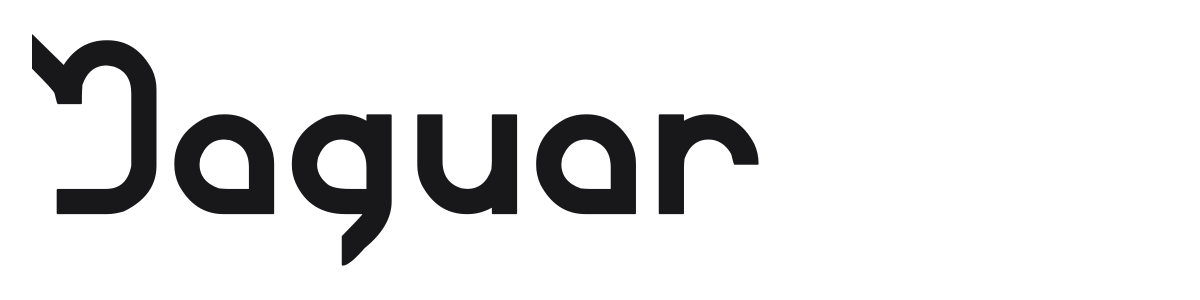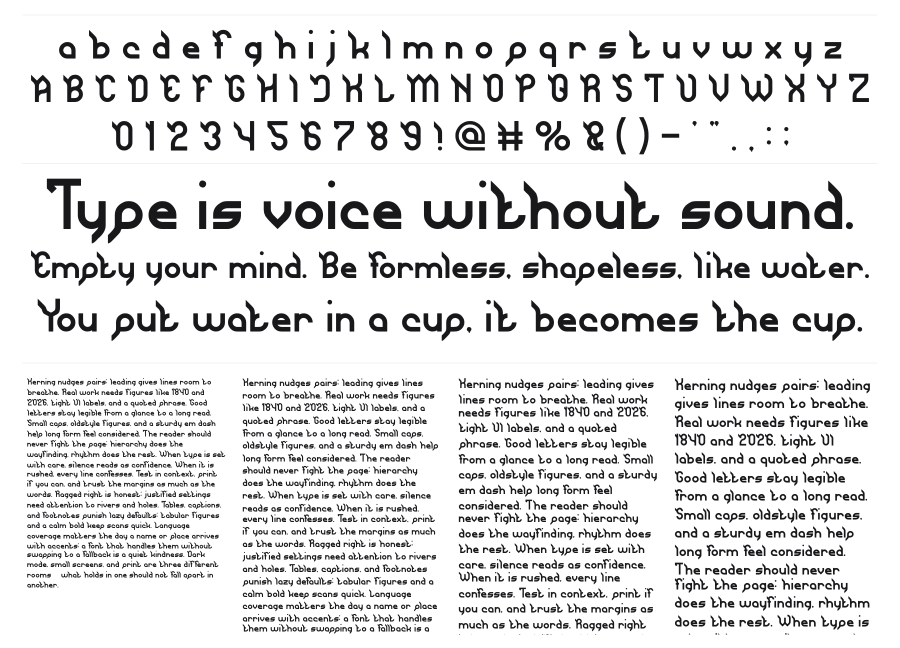
Jaguar
Jaguar is a bold display sans with a distinctive construction: rounded, wide characters interrupted by sharp angular notches and pointed cutouts at stroke terminals, giving it a fang-like energy. The contrast between soft curves and geometric incisions makes it feel simultaneously playful and edgy. It works at large sizes where those details can breathe.